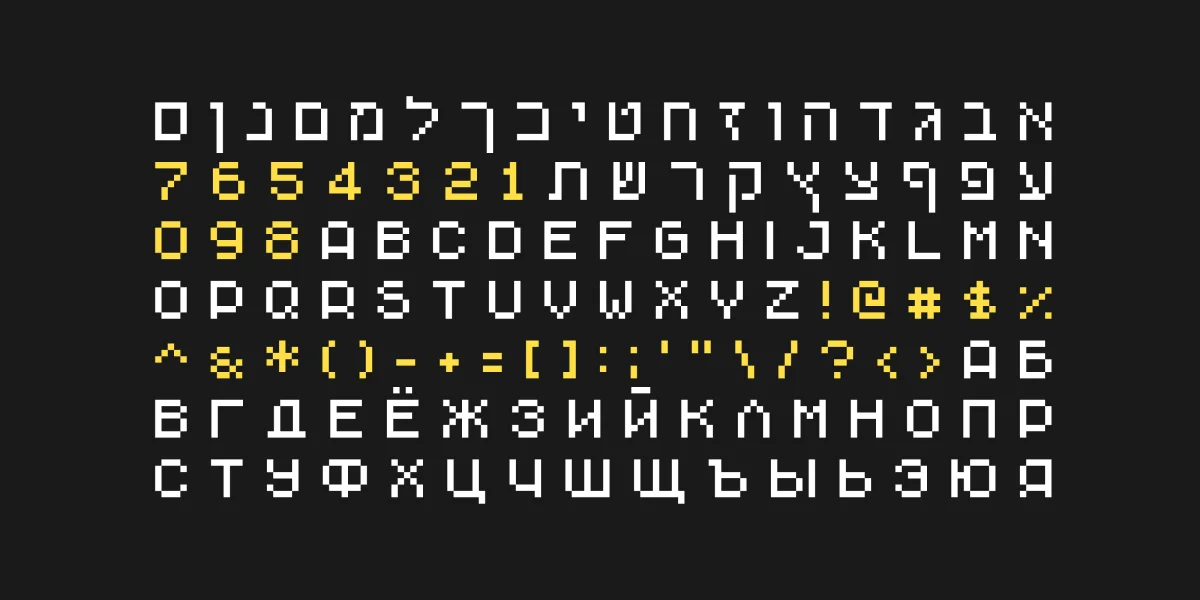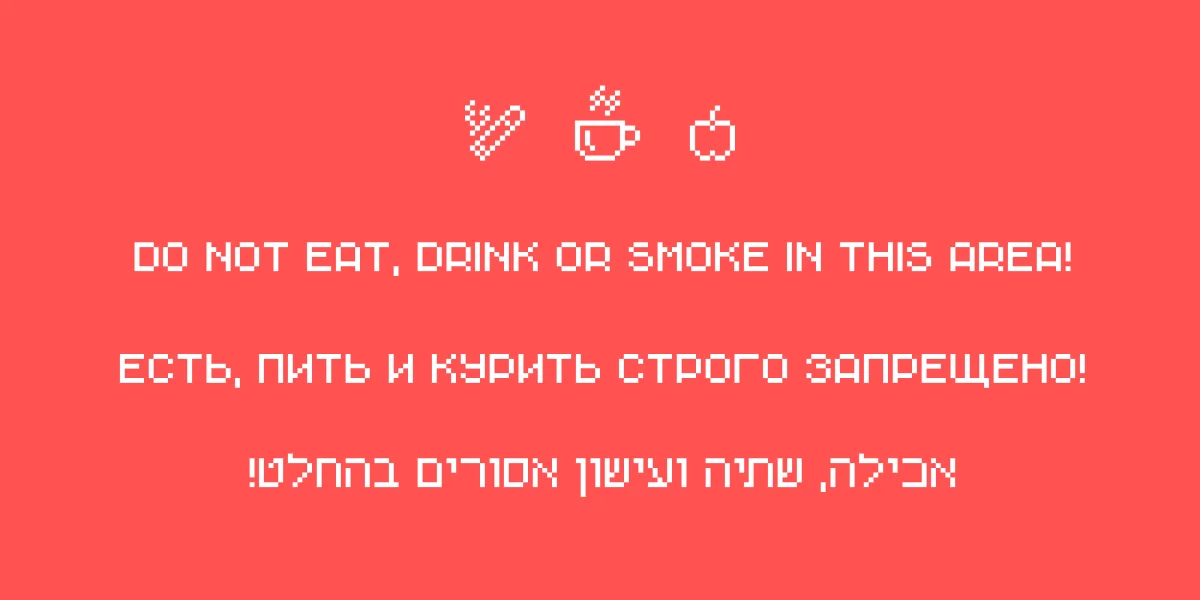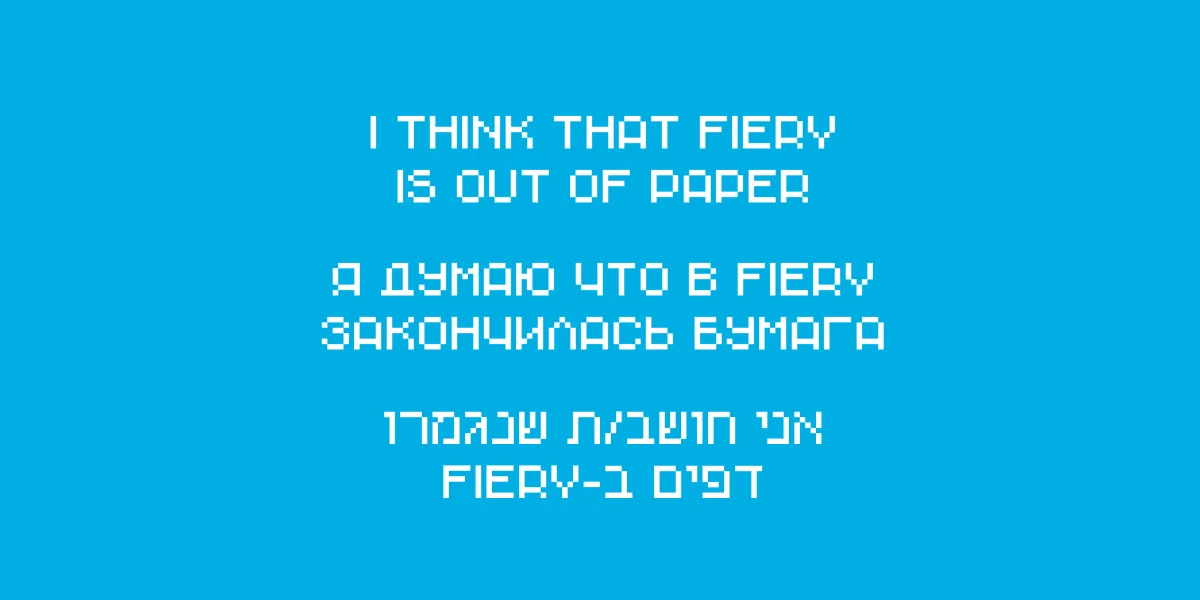
Chava is a free pixel typeface that fits into 5 by 6 grid (except Cyrillic).
It has one style – Regular. All capital letters.
Chava supports Latin, Cyrillic and Hebrew.
Great for web, posters, books and other stuff.